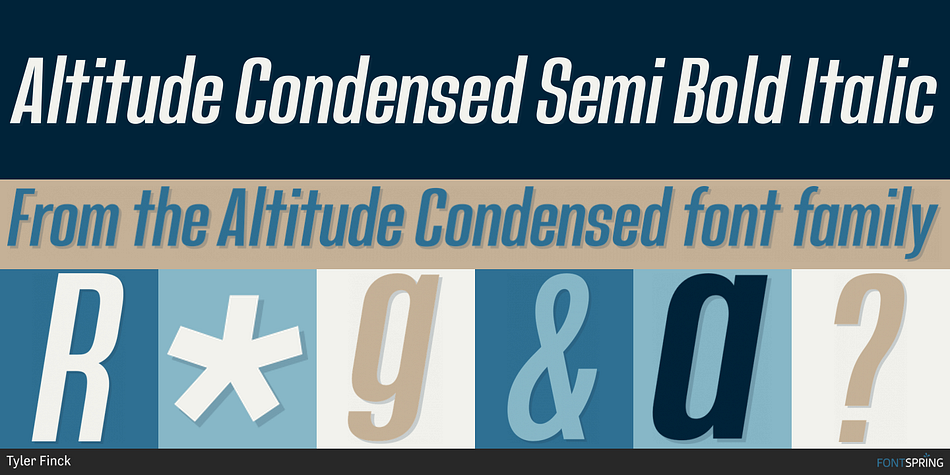
Altitude Condensed is a sans serif font family. This typeface has sixteen styles and was published by Tyler Finck.
Altitude Condensed Semi Bold Italic
Released first as a single style in October of 2016, then as a full family in March of 2017, Altitude Condensed is brand new and flying high. It ranges from thin to extrabold, making a big impact with a small horizontal footprint. It supports most western languages and contains fixed width numerals for number layout perfection.